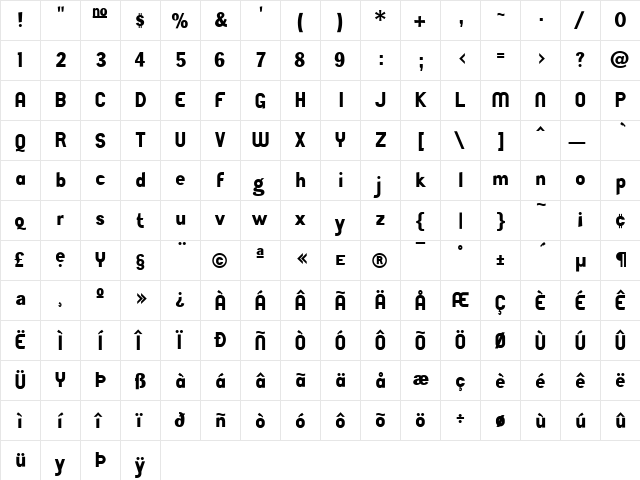
Tenko Regular
Design Context for Tenko Typeface
Tenko offers clean, dependable letterforms without strong stylistic allegiance, making it a practical choice for designers who need flexibility.